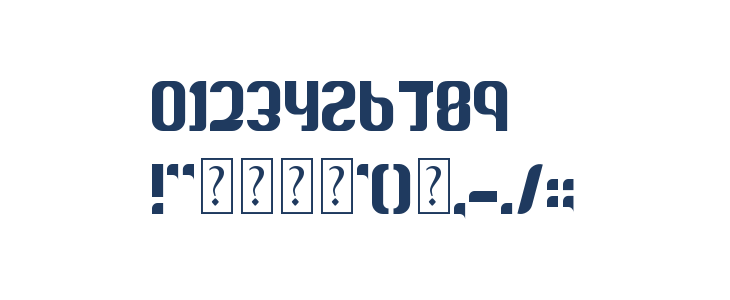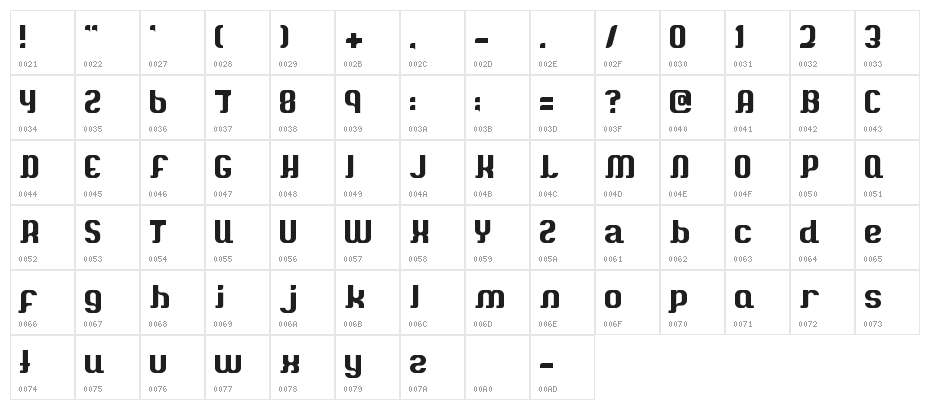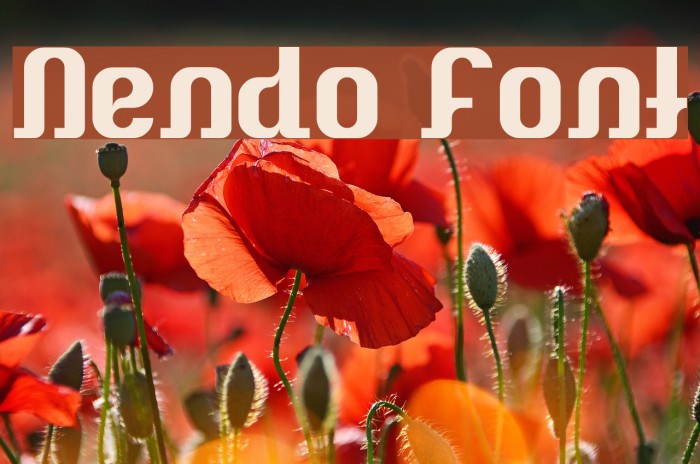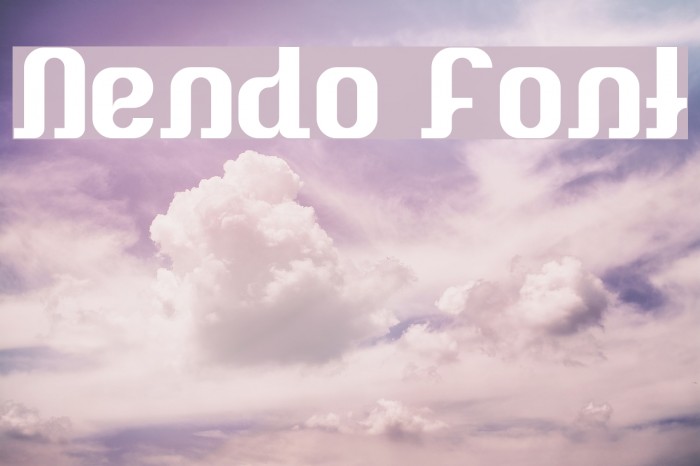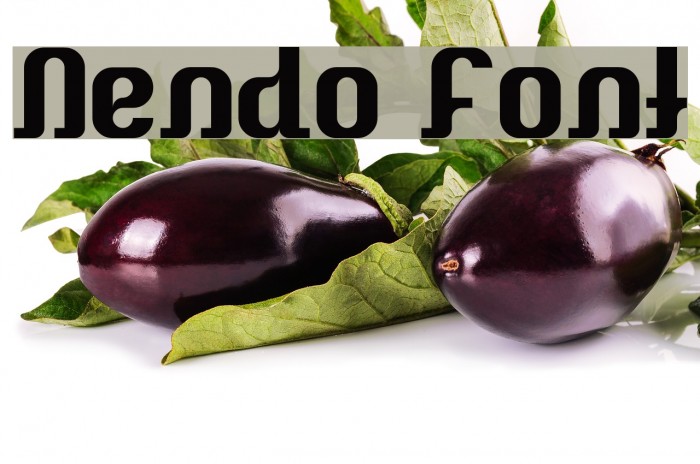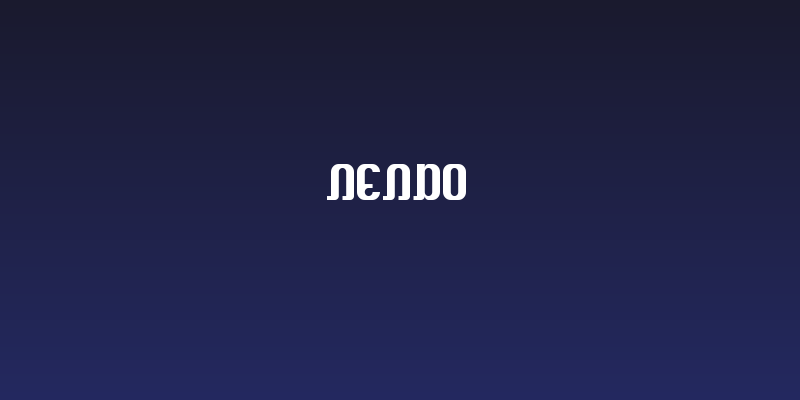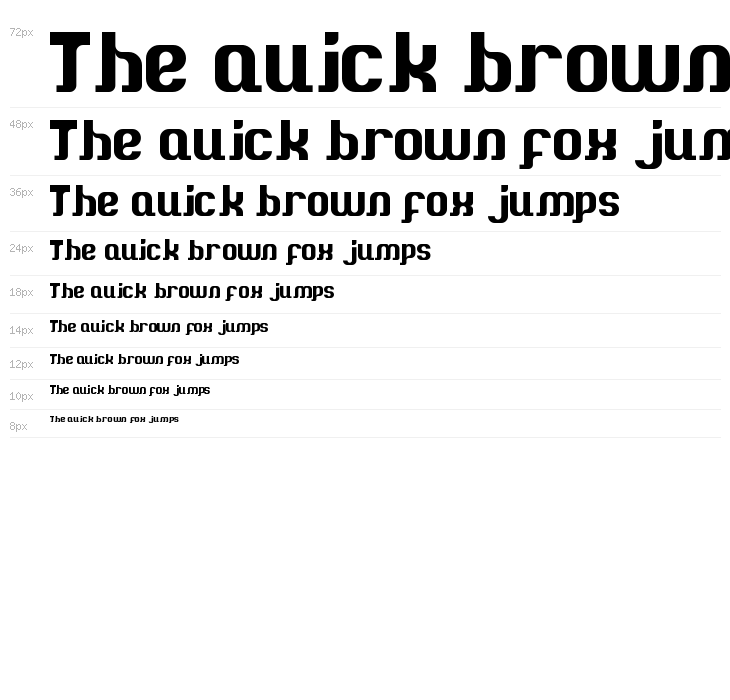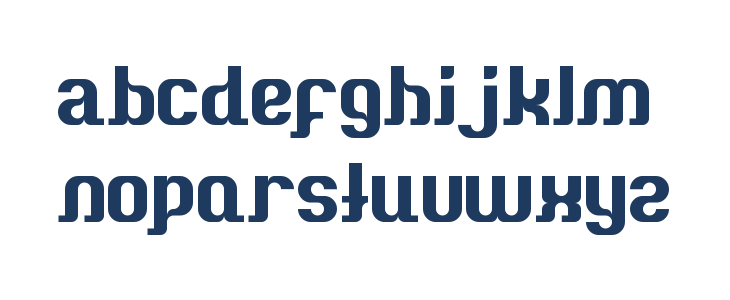
Nendo Font
Nendo Description
This font features a bold and modern design with a unique geometric structure. The characters are constructed with a combination of thick and thin strokes, creating a high contrast that adds a dynamic feel. The uppercase letters have a distinct, blocky appearance with rounded edges, while the lowercase letters maintain a consistent style that complements the uppercase set. The numerals are equally bold and geometric, ensuring readability and visual impact. Special characters are designed to match the overall aesthetic, making this font suitable for a variety of creative applications.
| Proposed Projects | Ideal for branding, posters, headlines, and any project requiring a strong visual impact. |